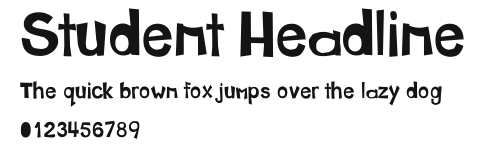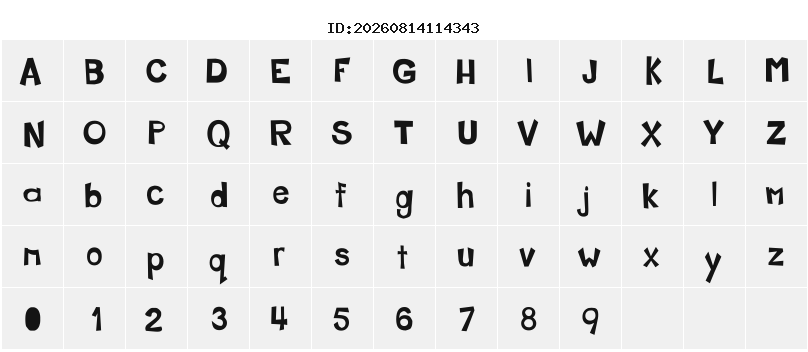
Student Headline Preview
• Font Name: Student Headline
• Full Font Name: Student Headline
About Student Headline.ttf
Student Headline.ttf is a modern, elegant sans-serif font designed for ultimate readability and visual harmony. Perfect for branding, headlines, web design, and print materials.